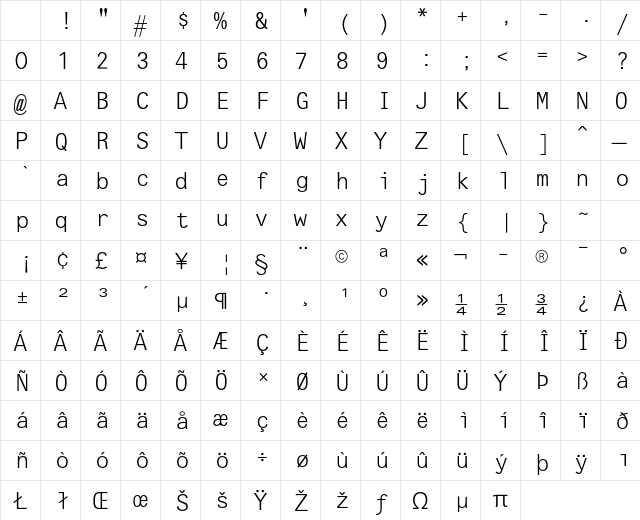
Complete Typewriter Gothic MT Std Regular glyph index. Displaying only characters natively supported by Typewriter Gothic MT Std Regular font.
Typewriter Gothic MT Std uses fixed-width spacing throughout, giving it the structured, systematic character associated with coding environments and technical documentation.
Pro Tip: Use Typewriter Gothic MT Std with slightly increased line-height for extended reading - fixed-width spacing can feel dense in longer passages without extra breathing room.